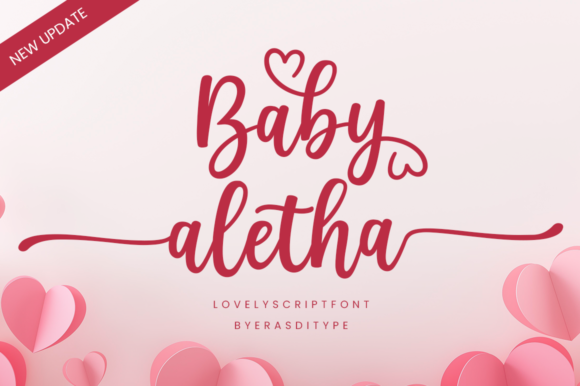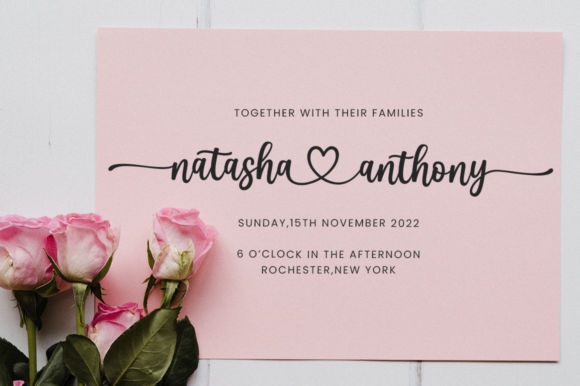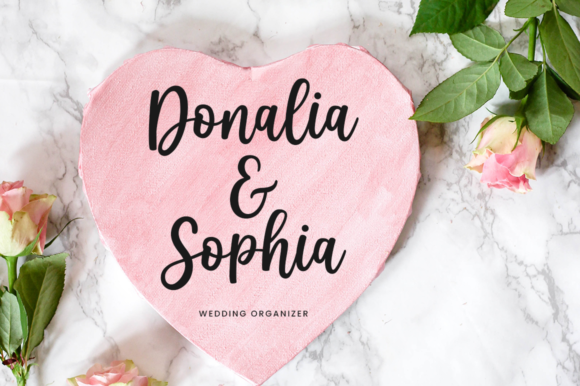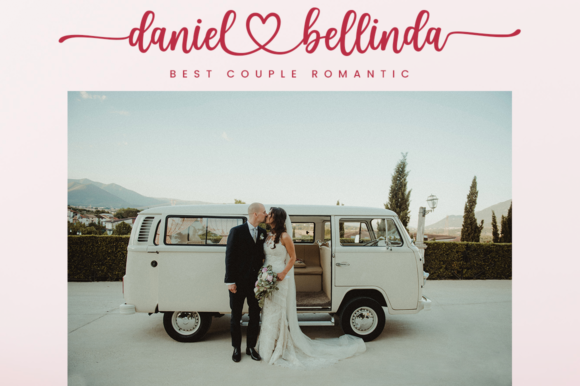
Baby Aletha Font: Romantic Calligraphy for Wedding & Logo Design
About the Baby Aletha Font
Discover the charm of Baby Aletha Font. This font is a perfect blend of modern aesthetics and classic appeal. Baby Aletha is a romantic and sweet calligraphy typeface with characters that dance along the baseline. It will add a luxury spark to any design project that you wish to create! This font is PUA encoded which means you can access all of the amazing glyphs and ligatures with ease!
Baby Aletha’s elegant, flowing forms make it ideal for projects requiring a touch of refined femininity. It shines in short headlines, logos, wedding invitations, and social media graphics where its romantic character adds a touch of luxury. However, its delicate nature makes it unsuitable for body text or UI elements; the intricate details would be lost at smaller sizes and hinder readability in larger blocks of text.
Consider pairing Baby Aletha with a clean sans-serif like Montserrat for a contemporary feel, or a classic serif like Garamond for a more traditional balance. For a playful contrast, a simple geometric sans-serif such as Futura could work well. Avoid pairing it with other highly decorative scripts, as this would create visual clutter.
Baby Aletha projects a personality that is both romantic and sophisticated. Its delicate curves and graceful ligatures convey a sense of timeless elegance, making it perfect for brands focused on luxury goods, beauty, fashion, or events that celebrate love and romance.
Baby Aletha Font Usage Examples
Baby Aletha Font Example